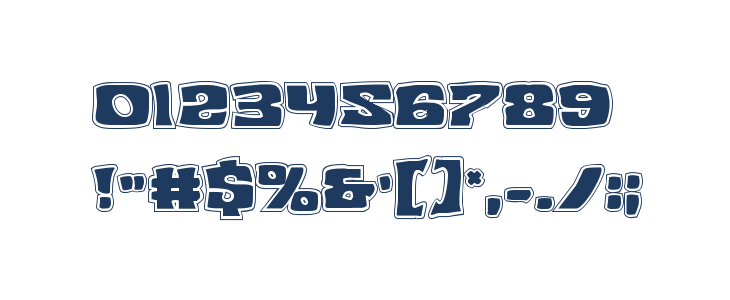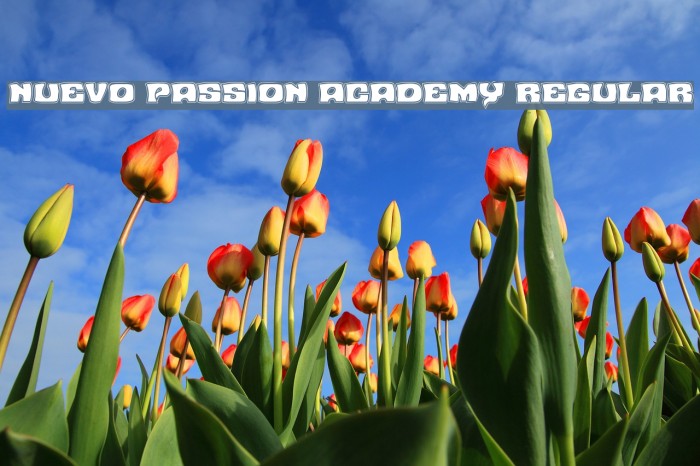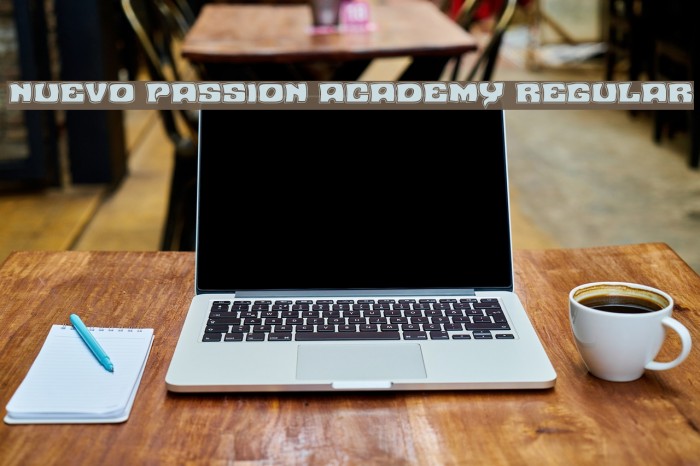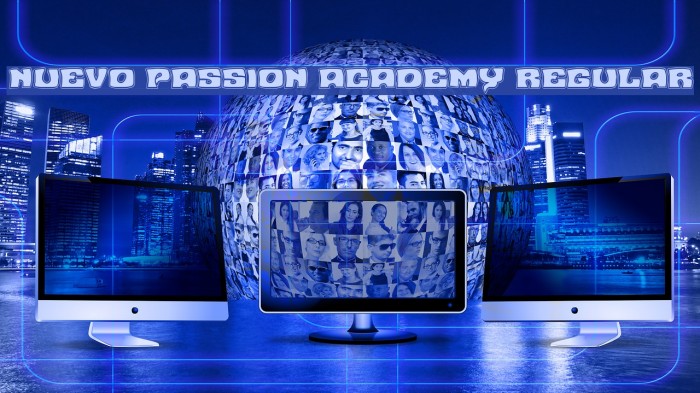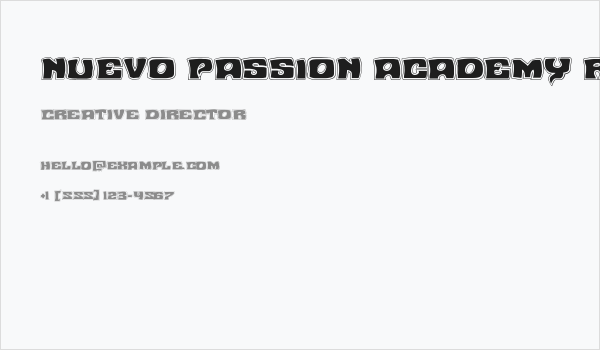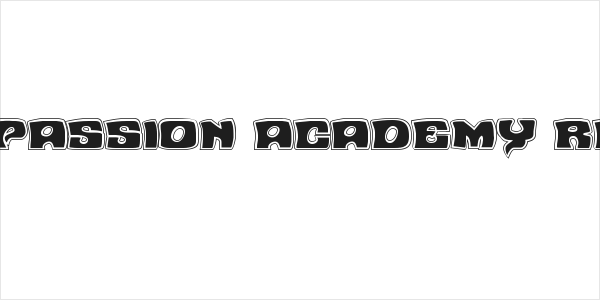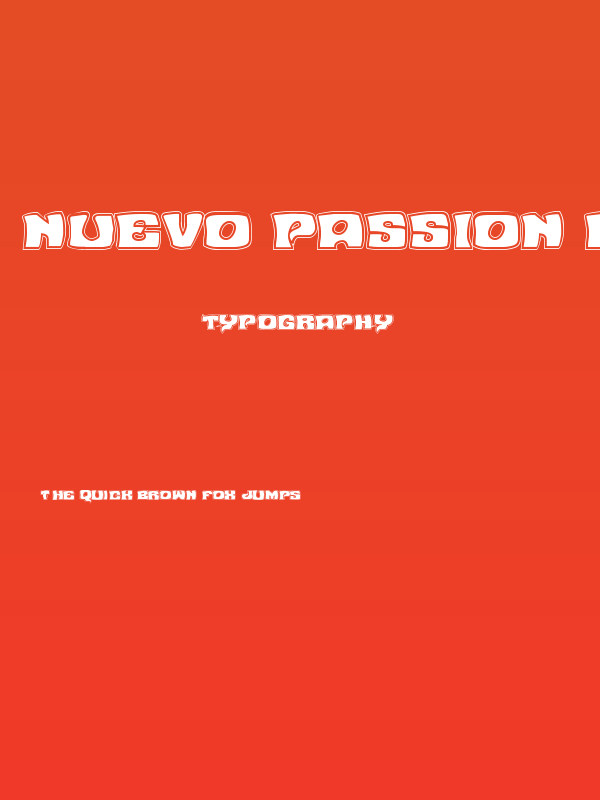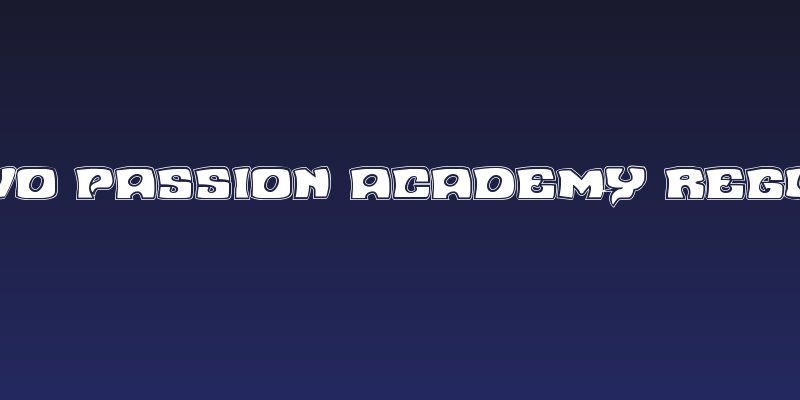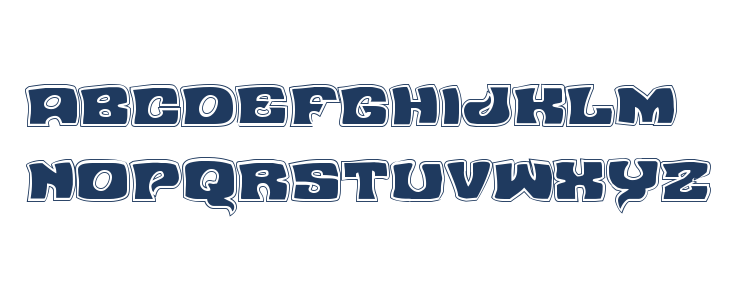
Nuevo Passion Academy Regular Font
Nuevo Passion Academy Regular Description
This font features a bold, decorative style with a strong presence. The characters are outlined with a thick border, giving them a three-dimensional effect. The uppercase and lowercase letters maintain a consistent design, with rounded edges and a playful, cartoon-like appearance. The numbers and special characters follow the same aesthetic, ensuring uniformity across all glyphs. This font's unique style makes it stand out, ideal for projects that require a fun and engaging look.
Proposed ProjectsIdeal for children's books, comic titles, posters, and playful branding.